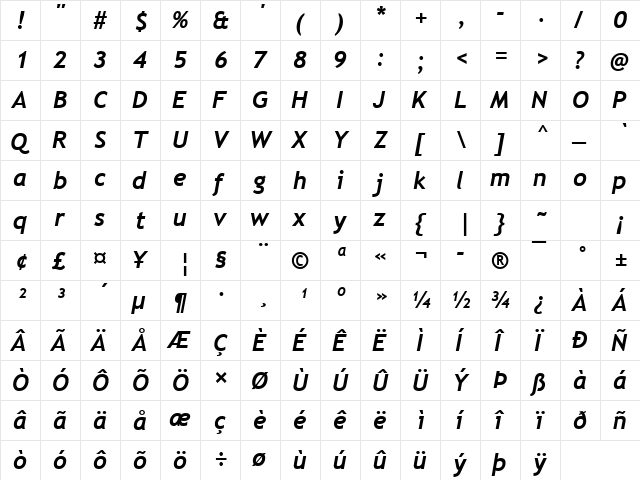
Trebuchet MS Bold Italic Font Preview
| Foundry | Microsoft Corp. |
| Designer | Vincent Connare |
Design Context for Trebuchet MS Typeface
Trebuchet MS offers clean, dependable letterforms without strong stylistic allegiance, making it a practical choice for designers who need flexibility. Its italic angle brings a sense of urgency and motion to the letterforms. Its bold stroke weight gives it real presence on the page.
Pro Tip: Try Trebuchet MS for annotation and caption copy alongside an upright companion — the contrast in angle creates a dynamic but ordered typographic system.